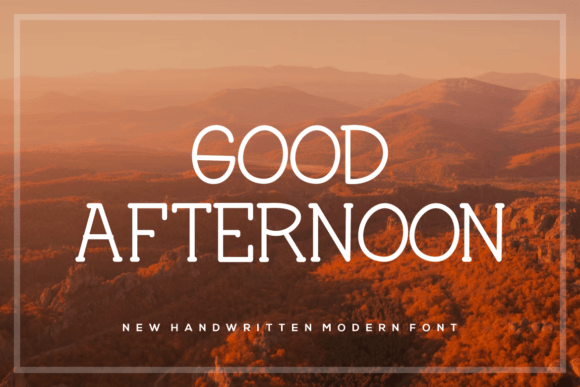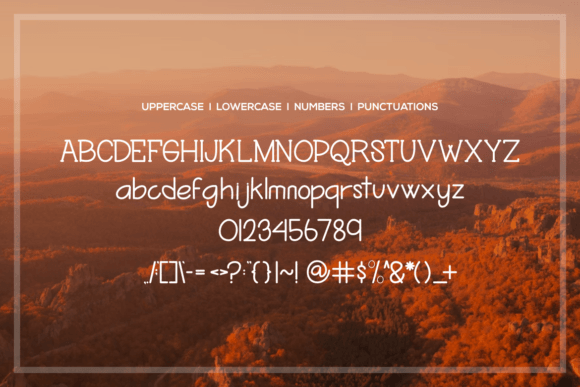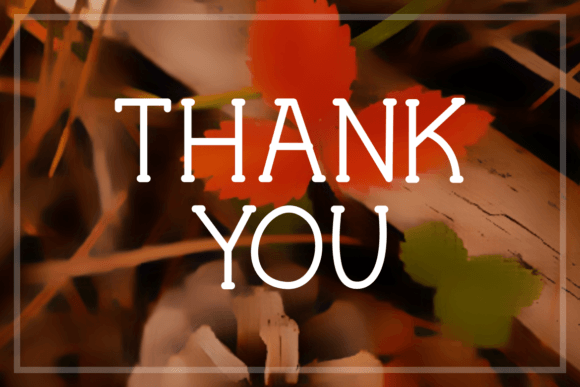
Introduction to Raqueen Font
Raqueen is a well-rounded serif font, perfect for adding a unique touch to your creations.
Designed in a handwritten style, this typeface is sure to make your designs stand out .
Key Features of Raqueen Font